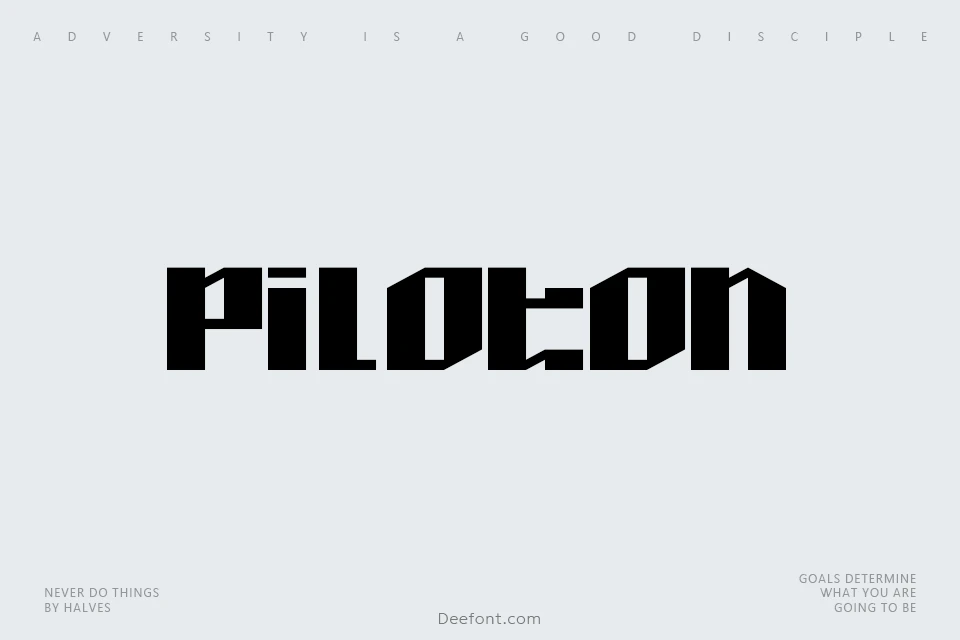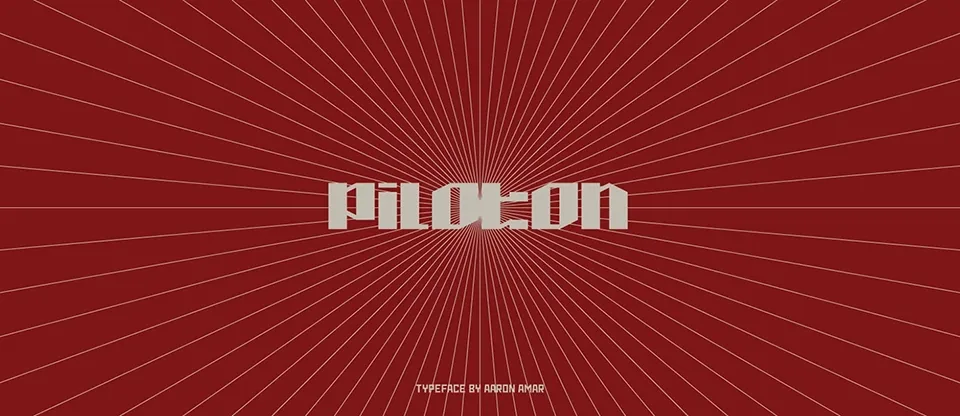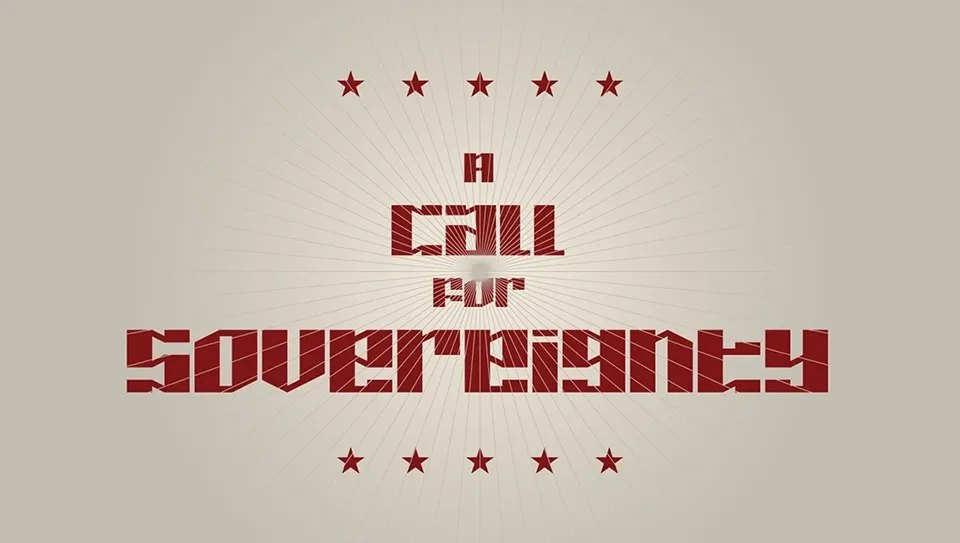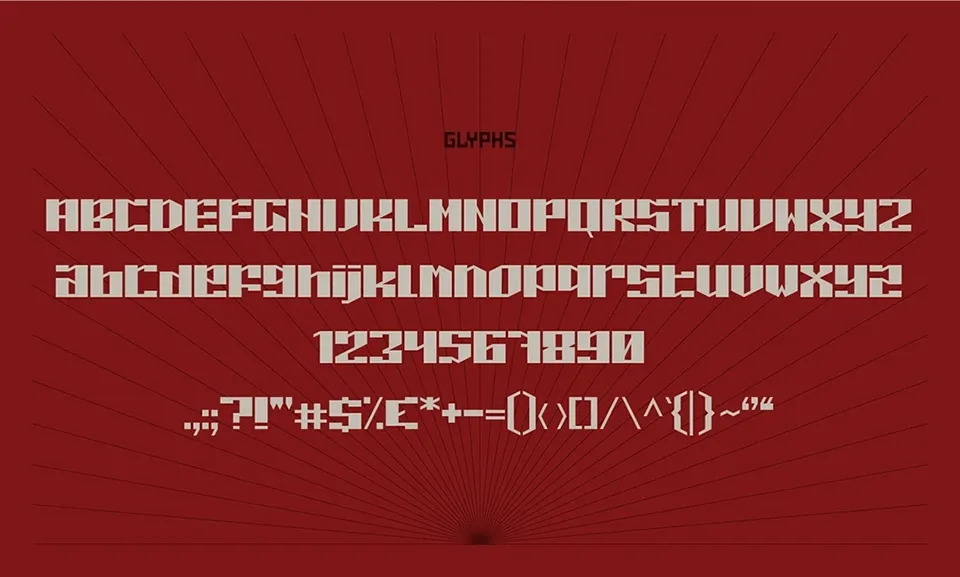
Piloton Font
Piloton Font are creative display typefaces designed by Aaron Amar. Featuring square and sharp forms, these fonts include uppercase and lowercase letters, numbers, and symbols, making them ideal for posters, headlines, logos, branding, and other display purposes. Both Piloton (created in 2009) and Piloton G (created in 2012) offer a bold, modern aesthetic that stands out in any design context.